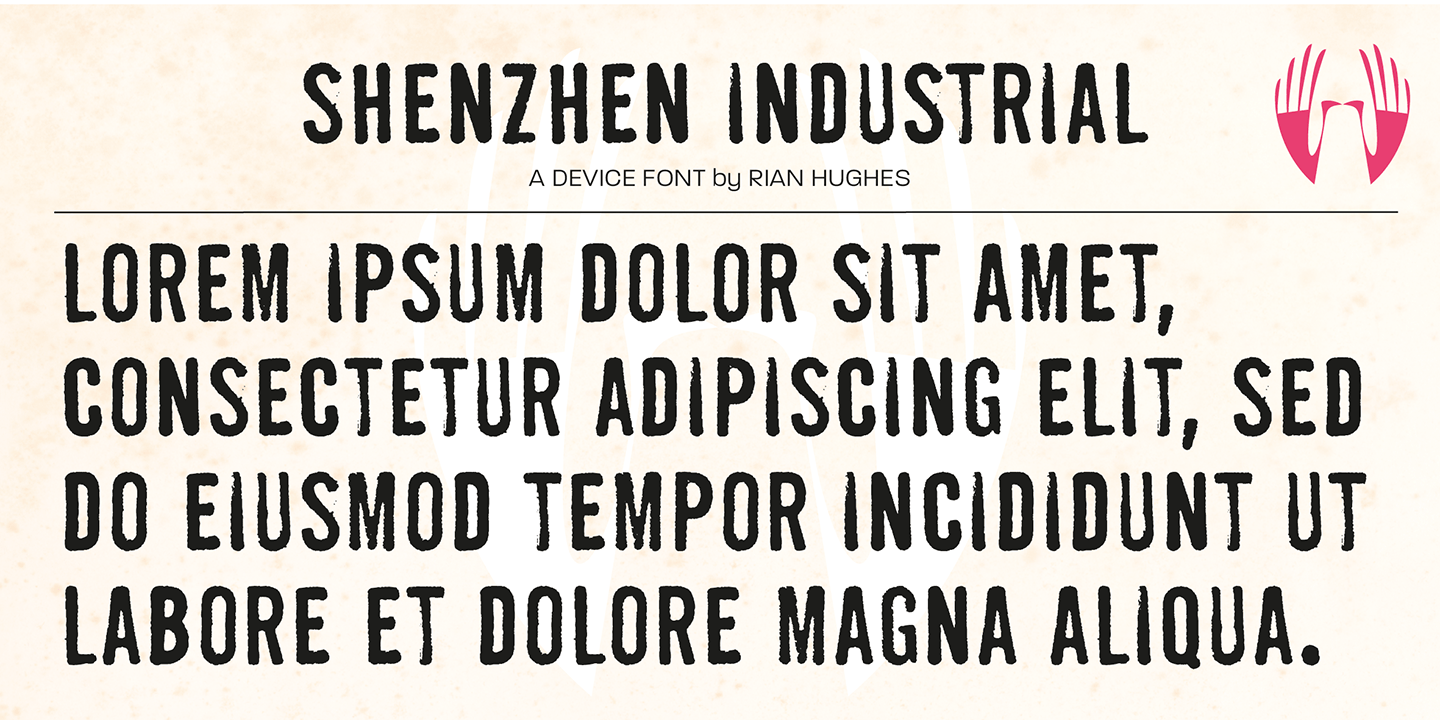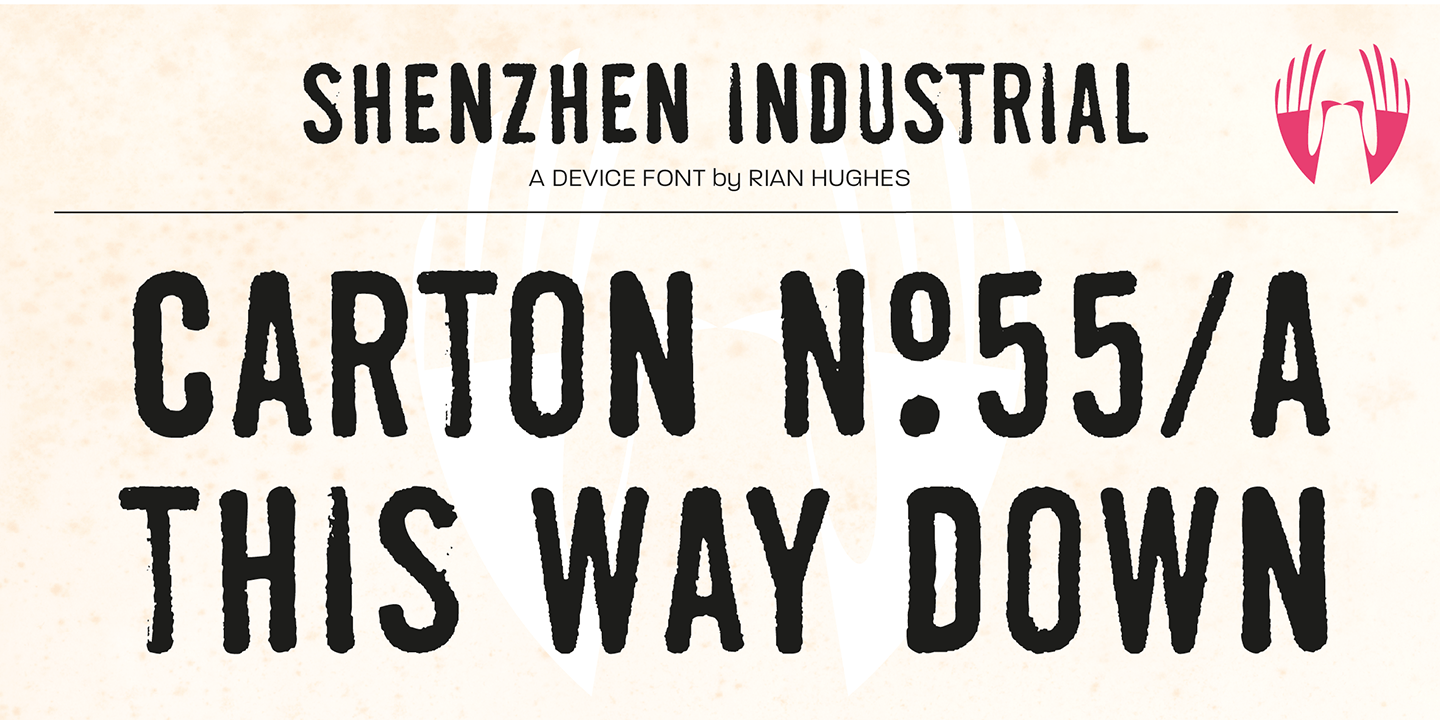
Shenzhen Industrial
Font Family by Device
With its contours roughened by ink spread on porous cardboard, Shenzhen Industrial evokes packing crates, stamped documents and urban grit with high-impact urgency.